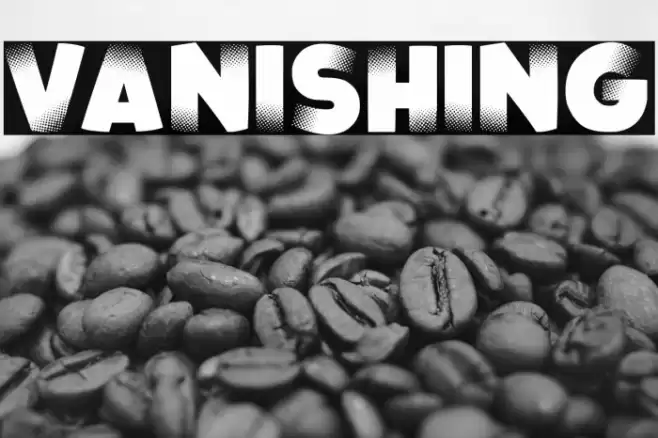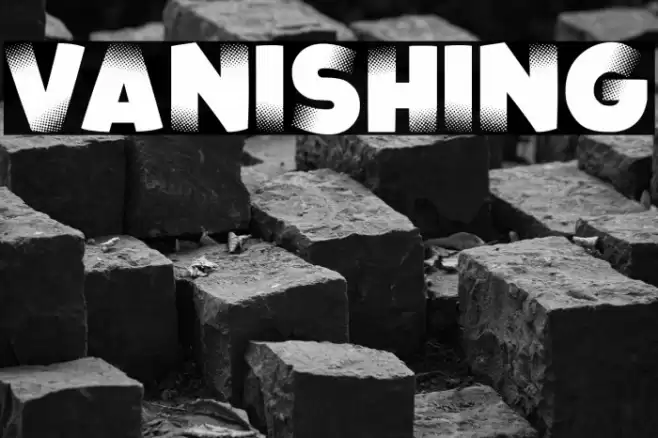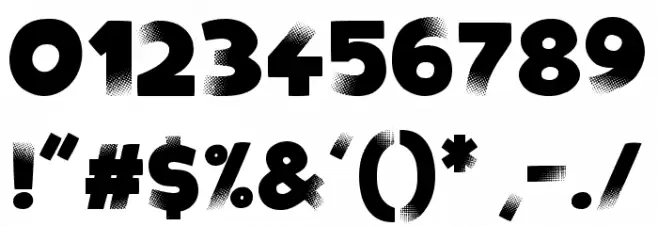
Vanishing Font
Vanishing Description
This font features a bold and striking design with a unique halftone effect that gives the impression of the letters gradually vanishing. The characters are thick and robust, with a playful yet edgy aesthetic. The halftone pattern adds a dynamic texture, making it stand out in any design. The uppercase and lowercase letters maintain a consistent style, while the numbers and special characters complement the overall look. This font is ideal for projects that require a bold statement and a touch of creativity.
A bold, halftone-effect font with a dynamic, vanishing style from Regular fonts.
- Font: Vanishing
- Proposed Projects: Ideal for posters, album covers, branding, and any project needing a bold, artistic touch.
- Overall Style: Modern, Decorative